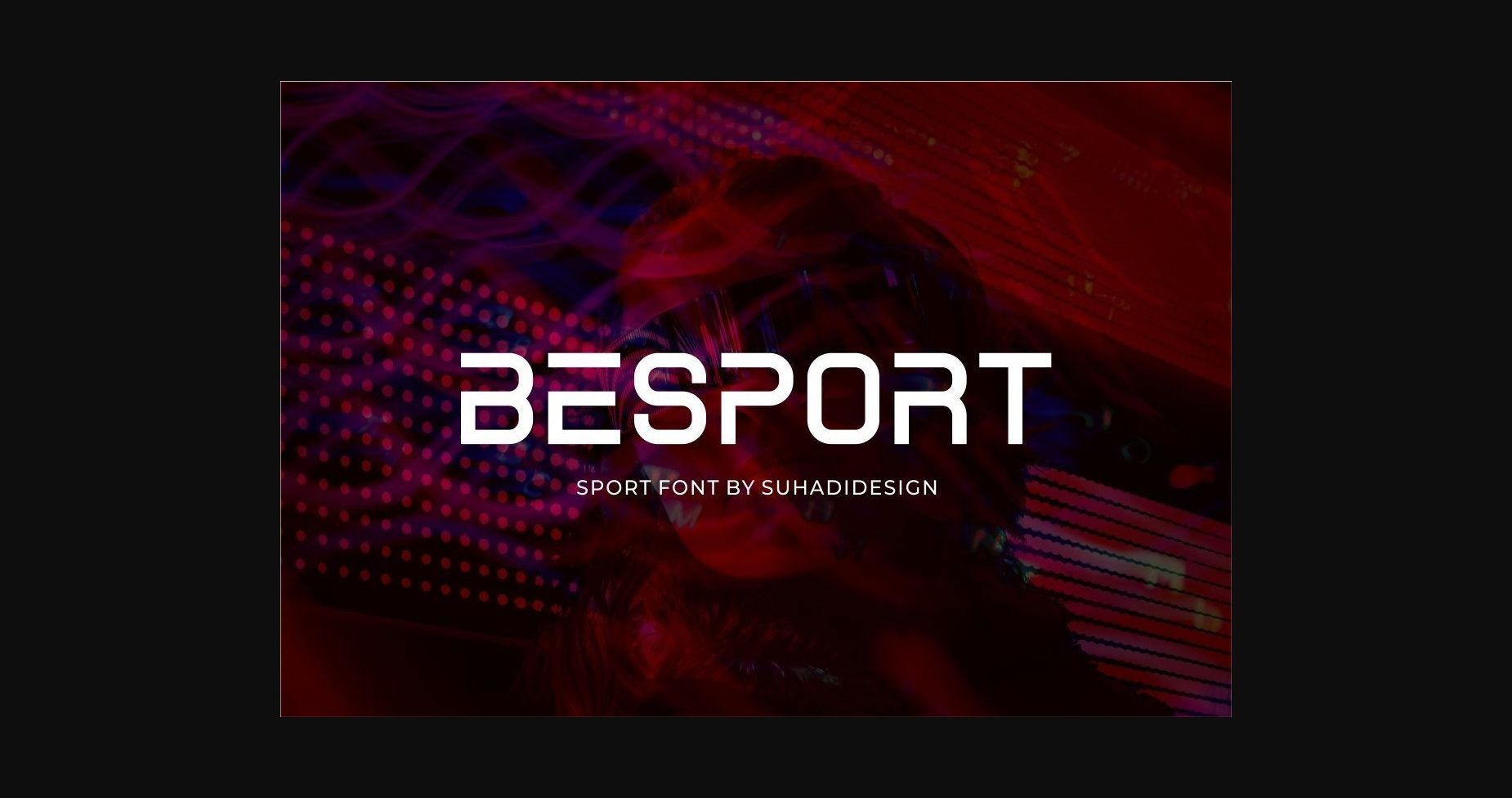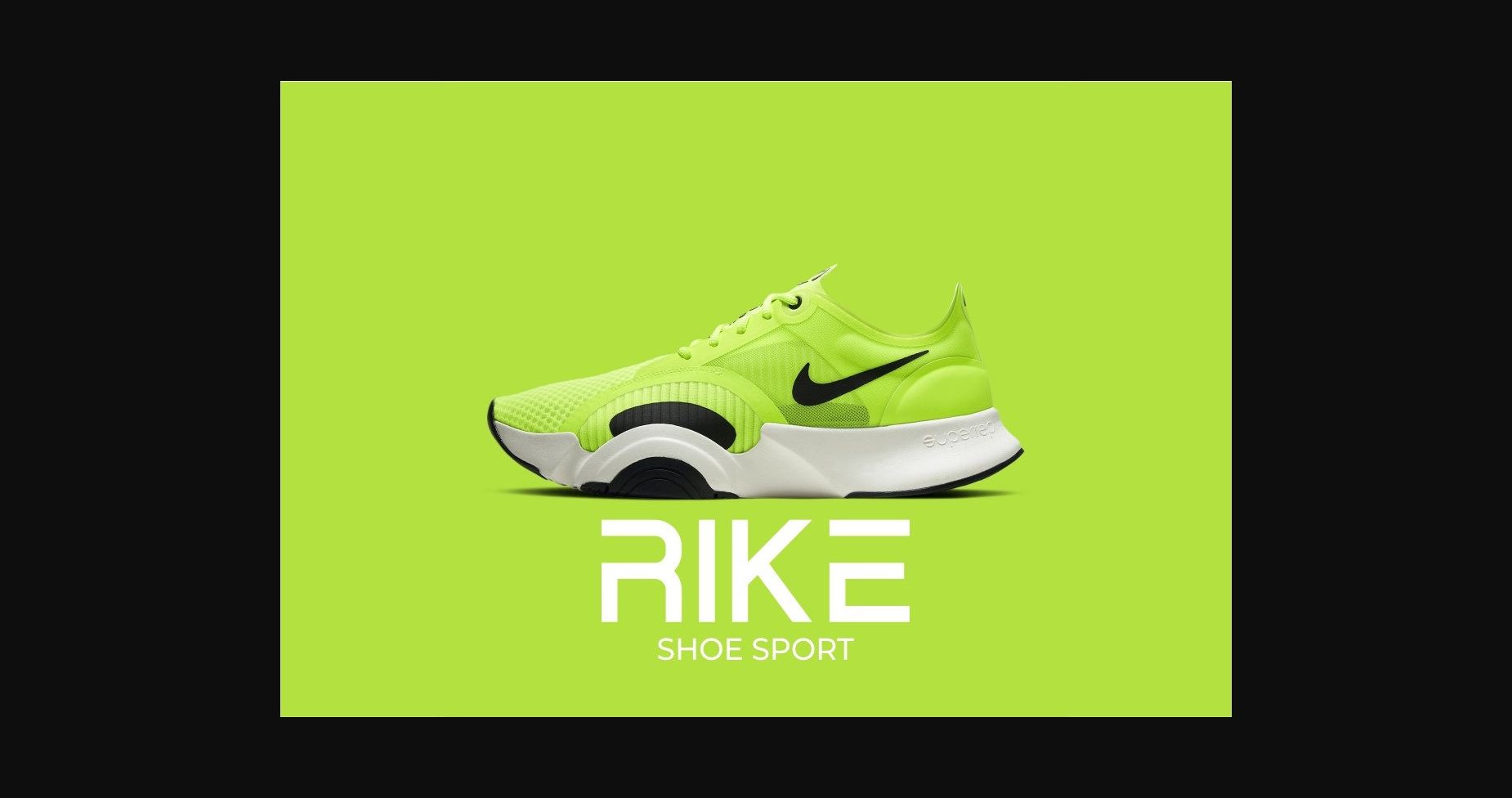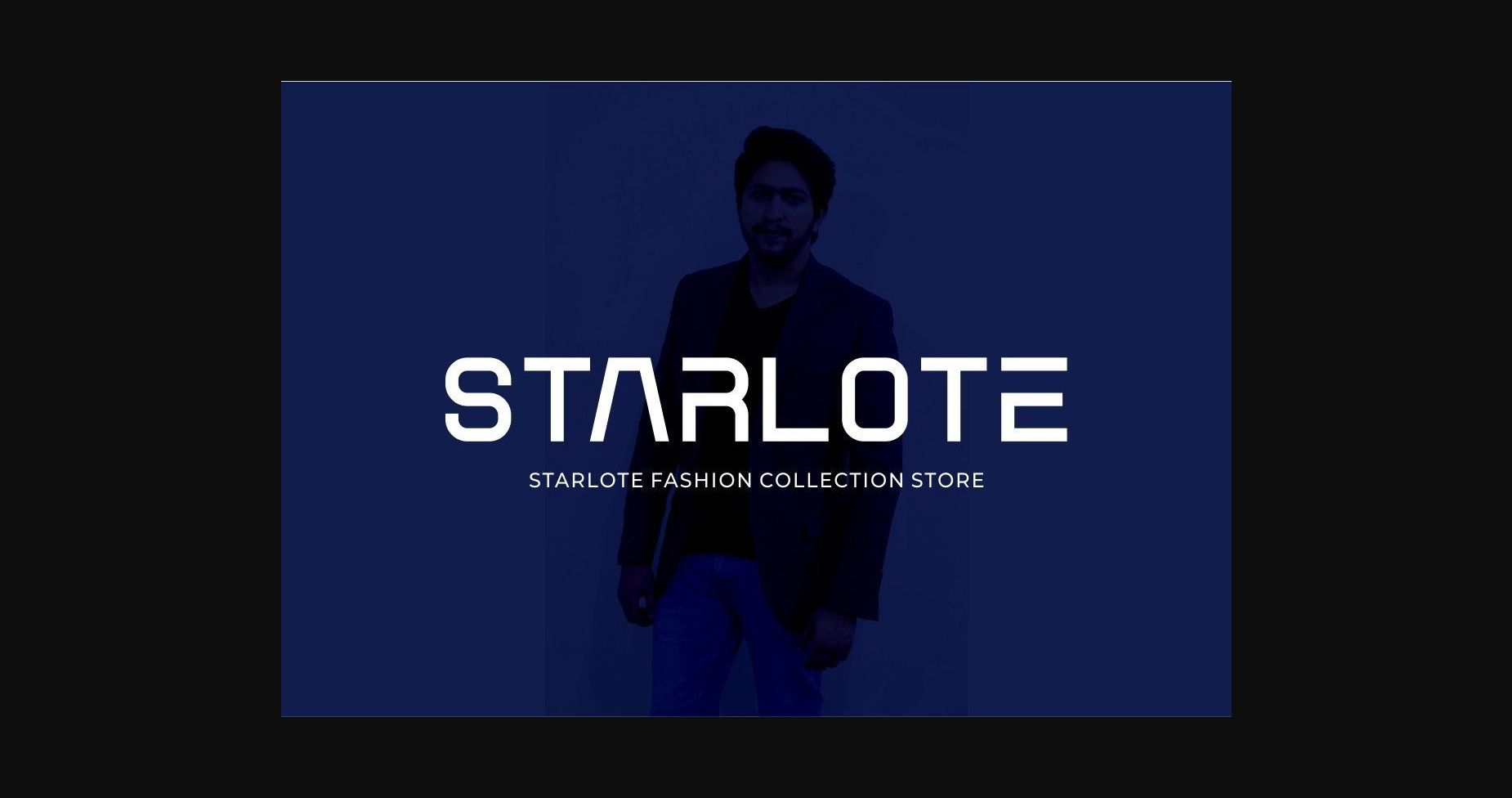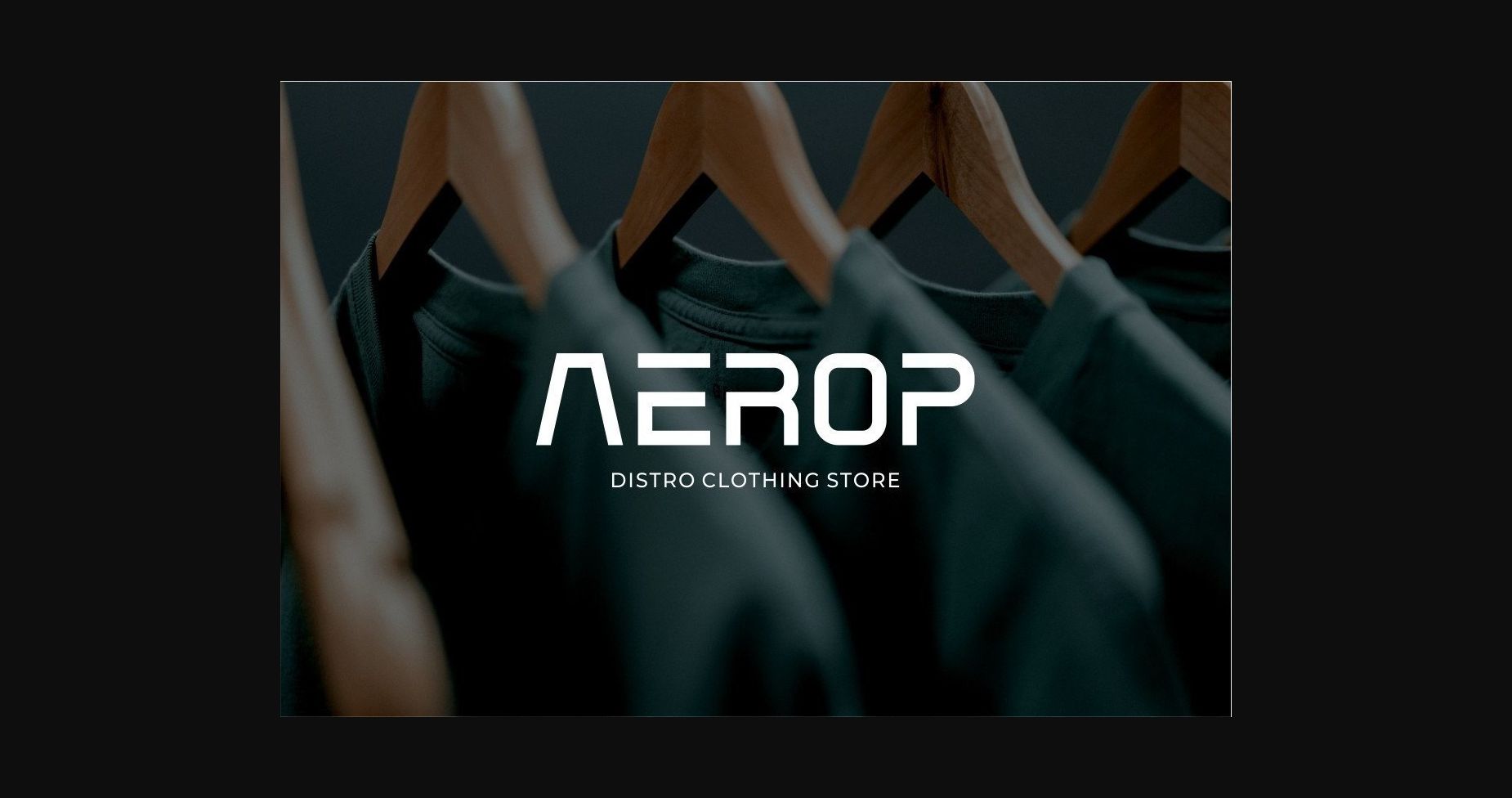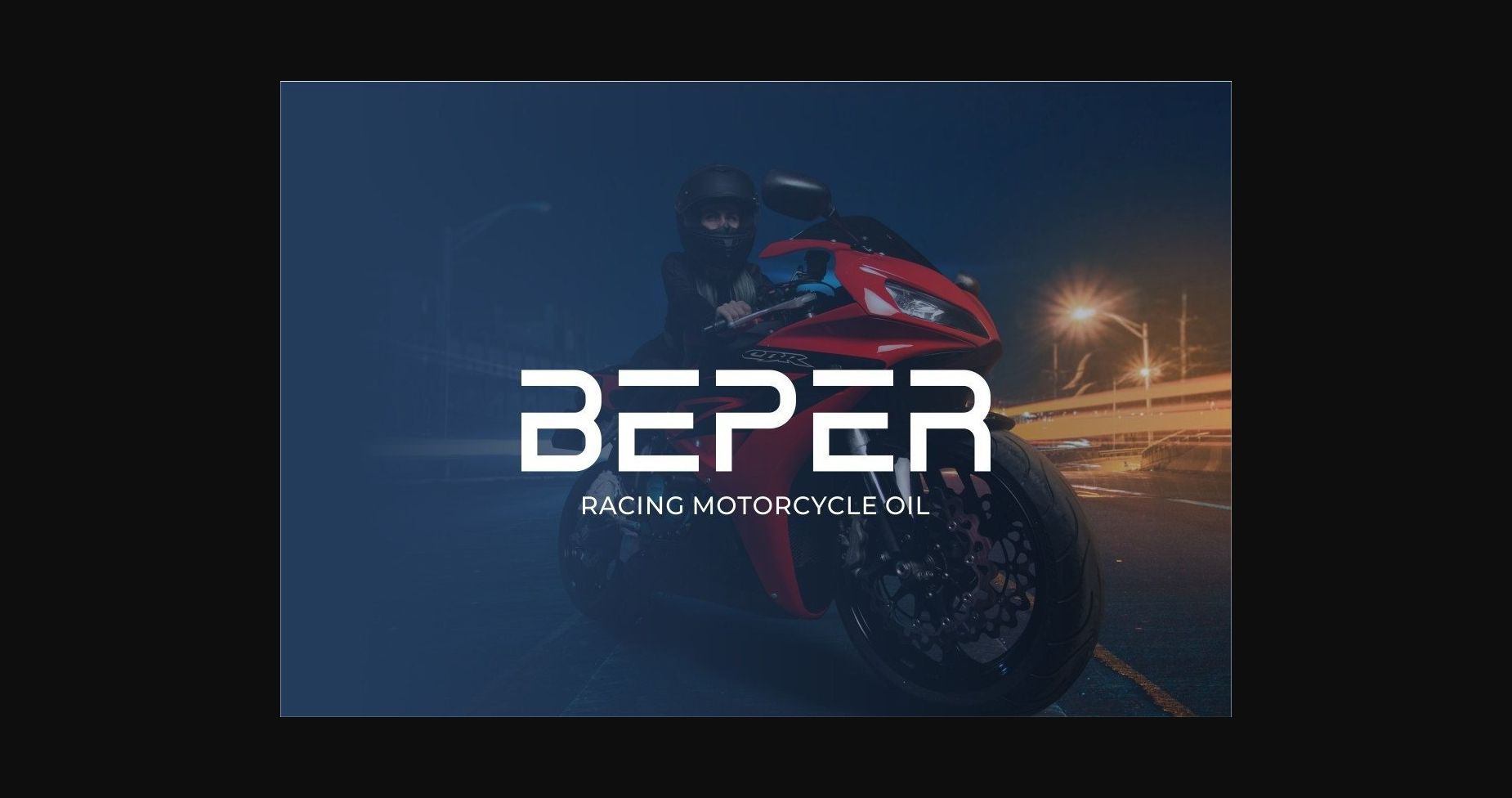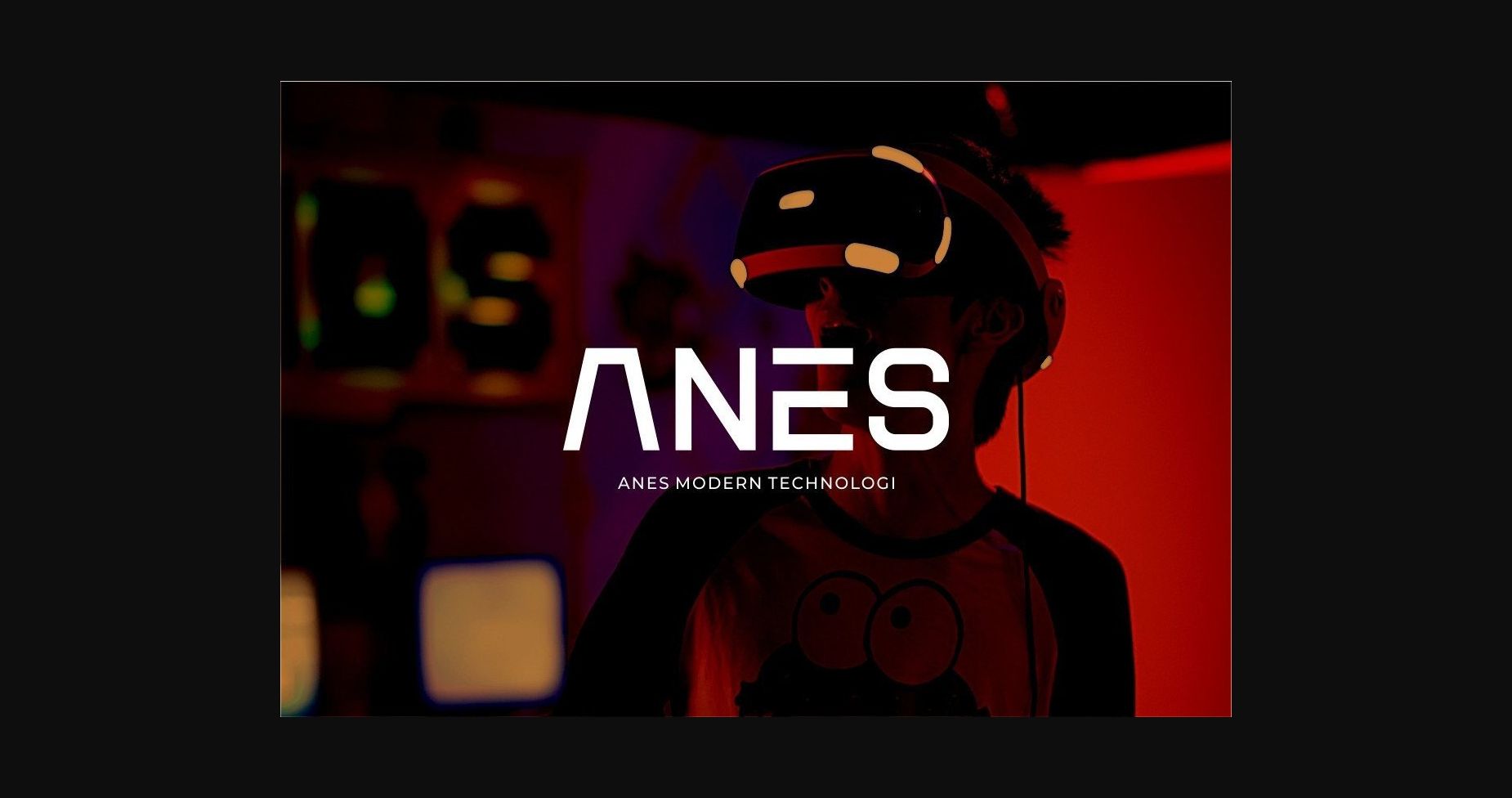
About Besport Font
Besport – Sport logo sans serif font
According to market demand, fonts tend to be modern, simple, and trendy. Besport is a logo font that is modern at any time and very versatile, to be able to become a favorite by the market. This typeface looks elegant, classy, modern, stylish, modern, and easy to use.
Besport is the right choice for logos, brands, company names, fashion, food menus, brand names, branding, brands, quotes, album covers, and other projects. It is here to take your designs to the next level.
According to market demand, fonts tend to be modern, simple, and trendy. Besport is a logo font that is modern at any time and very versatile, to be able to become a favorite by the market. This typeface looks elegant, classy, modern, stylish, modern, and easy to use.
Besport is the right choice for logos, brands, company names, fashion, food menus, brand names, branding, brands, quotes, album covers, and other projects. It is here to take your designs to the next level.